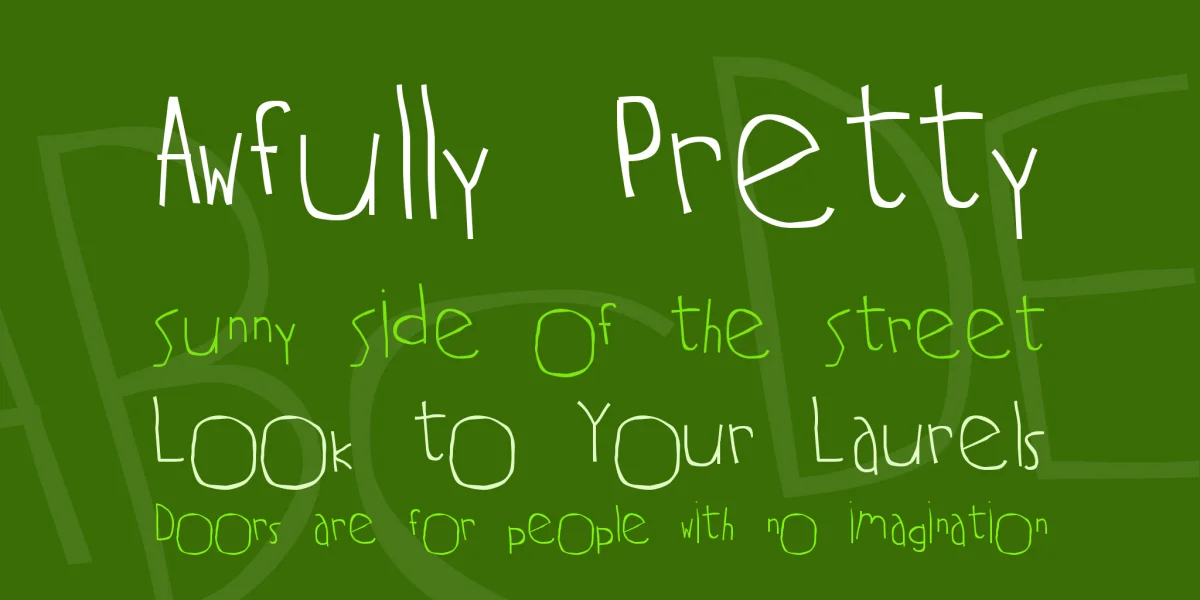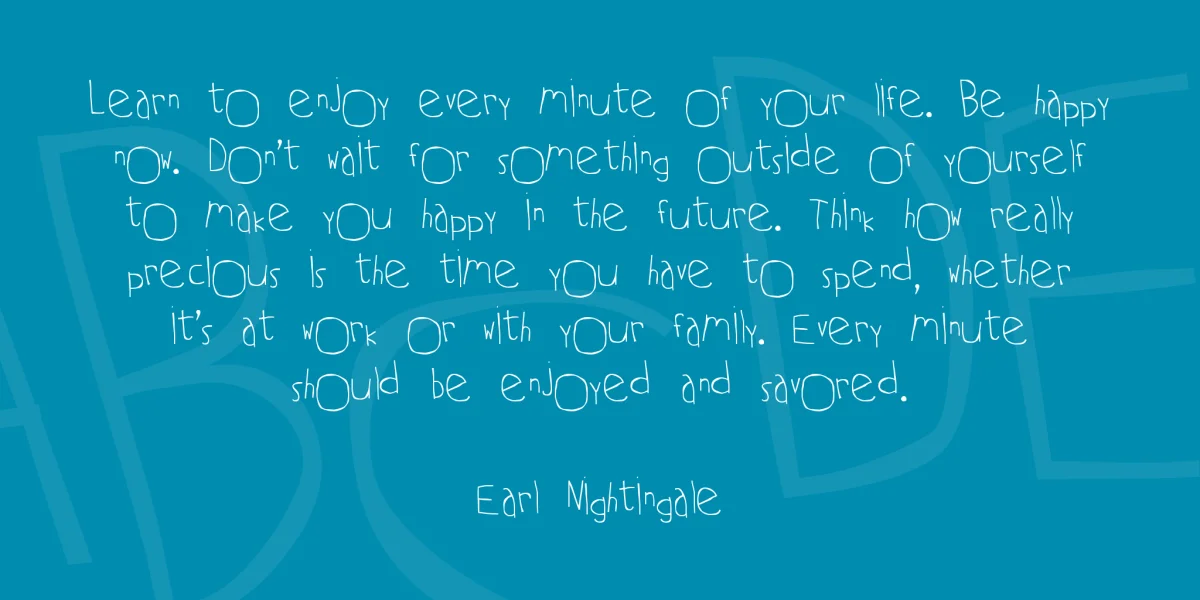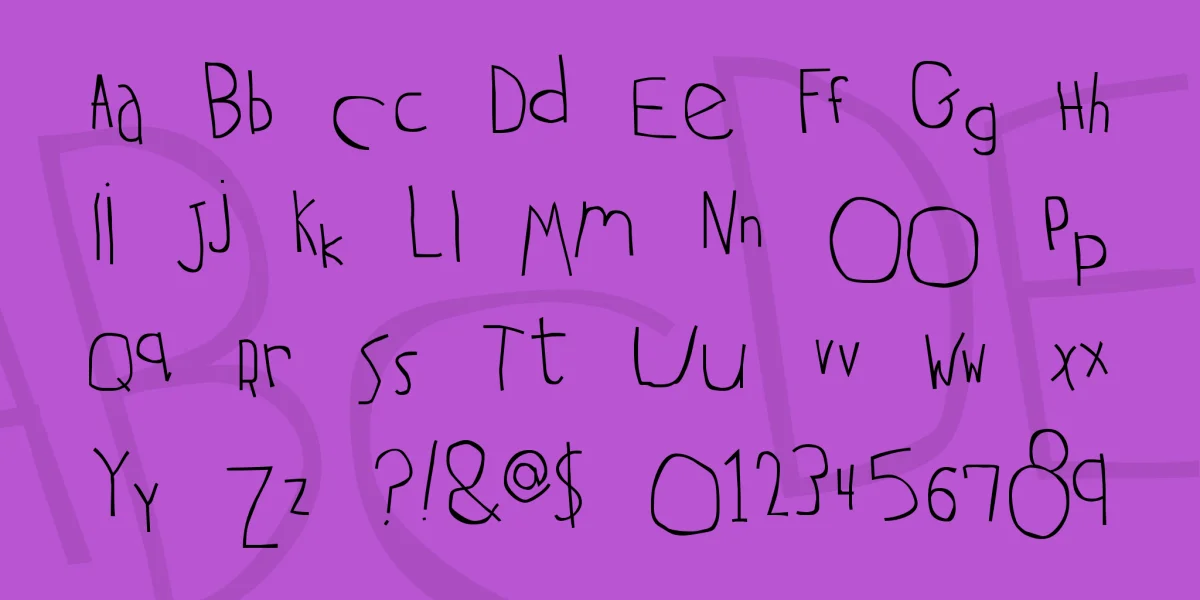
(Caps, Lower, Numbers, Punctuation, some special) would be a good font to do a really important Term Paper in. The letters have different sizes and basepoints, giving a very child's-handwriting look. Readable at small and large sizes. At large sizes the lines have genuine width and shape (the line width varies) which is not as visible here.